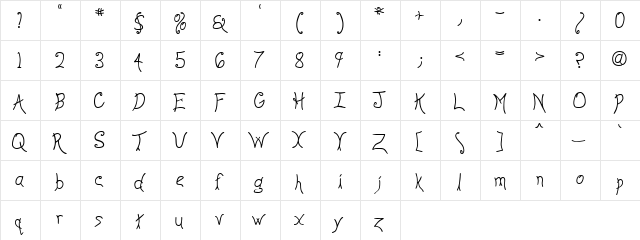
Pintu Bars Regular
Design Context for Pintu Bars Typeface
Pintu Bars is a composed and adaptable typeface that performs quietly and consistently across a wide range of design contexts.